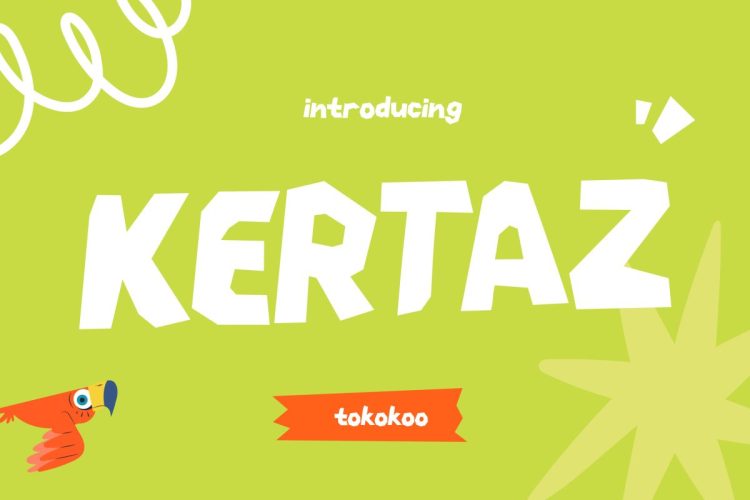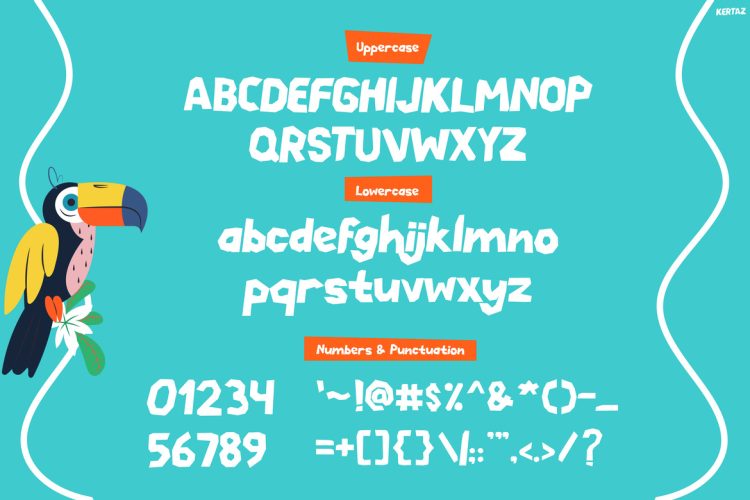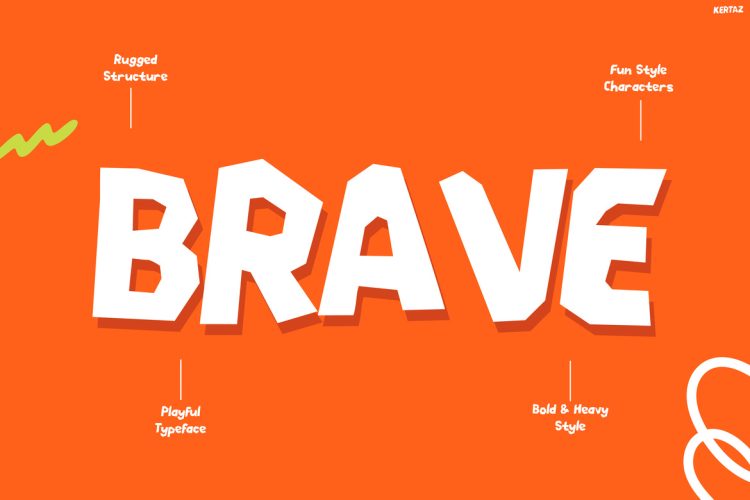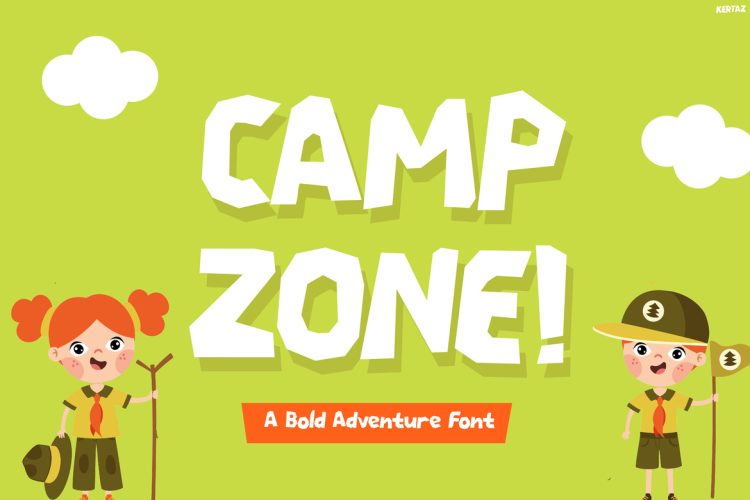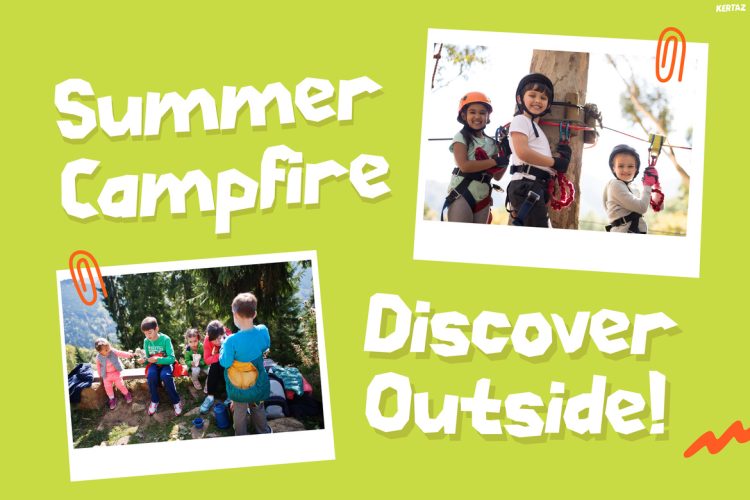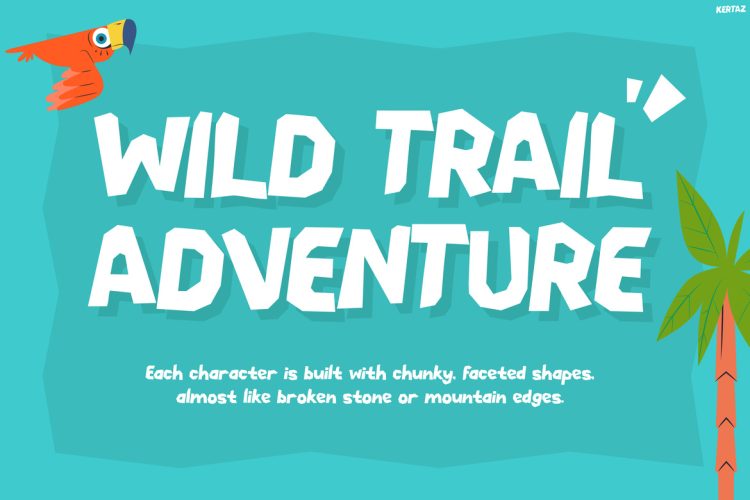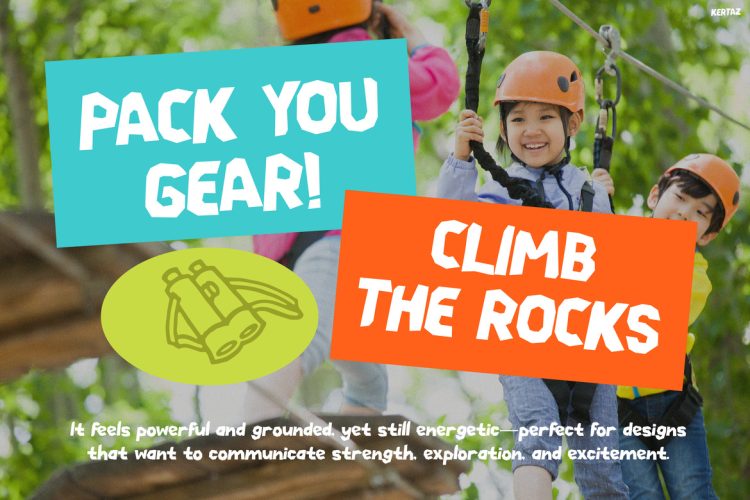
Kertaz โ Bold Adventure Kids Font
Kids Font Kertaz is a bold and adventurous typeface designed to bring the spirit of exploration into every design. At first glance, its sharp-edged, slightly irregular shapes create a dynamic and energetic look. Moreover, the handcrafted style gives it a raw, outdoor-inspired personality that feels playful yet strong. Because of its unique structure, each letter stands out while still maintaining readability. In addition, the font captures the excitement of camping, nature trips, and wild adventures. As a result, Kertaz delivers a powerful visual impact that is both fun and highly functional for kids-themed projects.
Kids Font Kertaz is a lively display font built for creative designs that celebrate outdoor fun and exploration. Not only does it feature bold and expressive letterforms, but it also pairs perfectly with nature themes, bright colors, and playful illustrations. Furthermore, its slightly rugged style adds character and uniqueness to every design. Therefore, whether you are working on posters, social media graphics, or printed materials, Kertaz helps create visuals that feel energetic and adventurous. Ultimately, it transforms simple text into eye-catching designs full of personality and movement.
Because of its bold and adventurous vibe, Kids Font Kertaz is perfect for:
- Kids outdoor event posters and adventure camps
- Childrenโs books about nature and exploration
- School projects, field trips, and activity programs
- Toy packaging and kids product branding
- Social media graphics and YouTube thumbnails
- Summer camp promotions and kids festivals
In conclusion, Kids Font Kertaz is the perfect choice for designers who want to create fun, bold, and adventure-filled visuals. So, add this exciting font to your collection today and start designing playful experiences that inspire kids to explore, learn, and have fun.